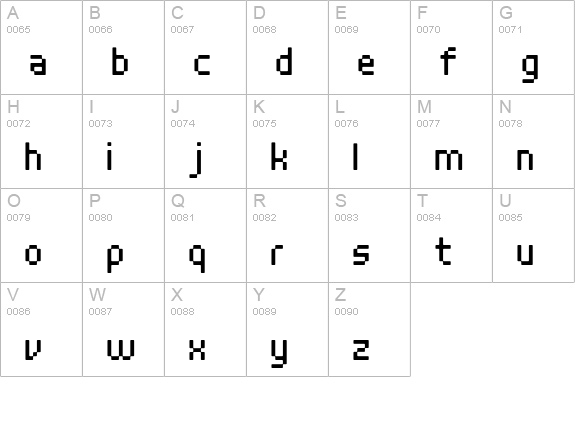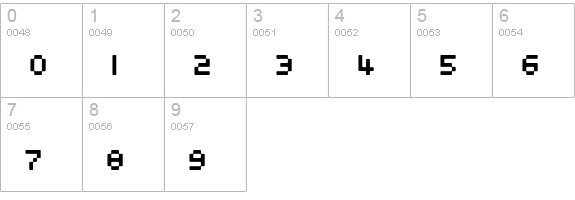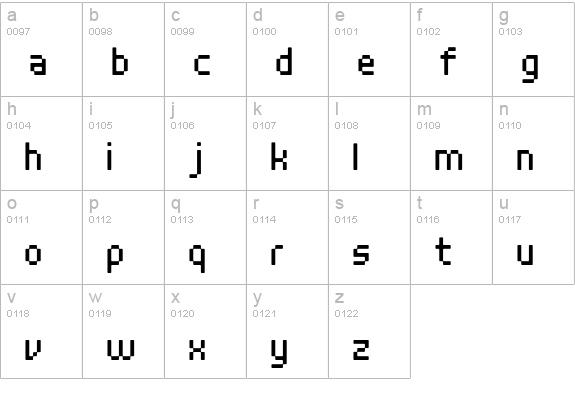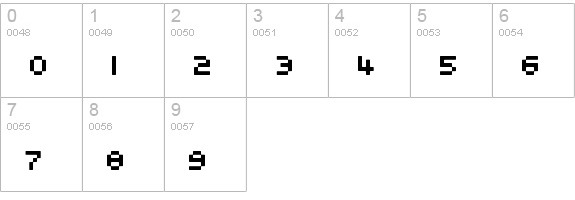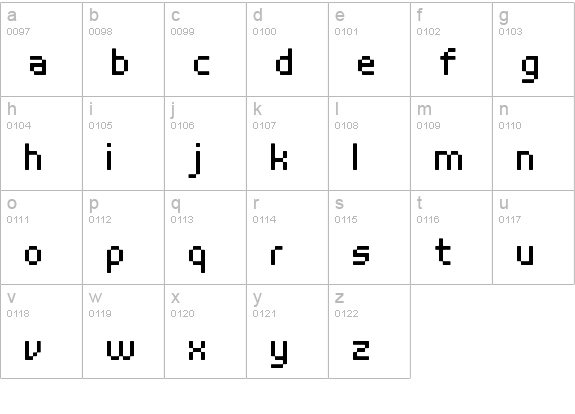
Stedelijk Font Details
Introducing Stedelijk font, a modern and sleek typeface designed to elevate your designs to new heights. With its clean lines and sophisticated appeal, this font exudes a sense of professionalism and elegance. Stedelijk font is the perfect choice for a wide range of design projects, whether you're working on branding, advertising, packaging, or digital media. Its versatility allows it to seamlessly adapt to any context, adding a touch of sophistication and refinement to your work. One of the standout features of Stedelijk font is its incredible legibility. Each letter has been meticulously crafted to ensure maximum clarity and readability, even at small sizes. This makes it ideal for both print and digital applications, ensuring that your message is always delivered with precision and impact. But what truly sets Stedelijk font apart is its accessibility. We believe that great design should be available to everyone, which is why we are thrilled to offer Stedelijk font as a free download at FontsMarket.com. This means that you can enjoy the benefits of this exceptional typeface without any financial constraints, making it the perfect choice for designers on a budget. So why wait? Download Stedelijk font today and experience the power of great typography. Elevate your designs, captivate your audience, and make a lasting impression with this remarkable font. With Stedelijk font, the possibilities are endless.